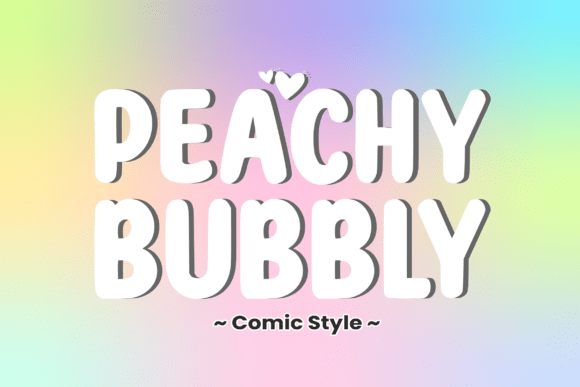
Peachy Bubbly Font: The Sweetest Addition to Your Design Projects
Are you looking for a font that can add a touch of sweetness and playfulness to your design projects? Look no further than the Peachy Bubbly font, a contemporary bubble font that is sure to delight. In this article, we’ll take a closer look at the Peachy Bubbly font, its features, and how you can use it to enhance your designs.
What is Peachy Bubbly Font?
Peachy Bubbly is a modern bubble font that is designed to add a touch of whimsy and fun to your designs. Each character in the font is carefully crafted to resemble a bubble, with a rounded and smooth appearance that is sure to capture attention. The font is perfect for a variety of design projects, from t-shirt printing to animation and comic titles.
Ideas for Using Peachy Bubbly Font
Peachy Bubbly is a versatile font that can be used in a variety of design projects. Here are some ideas to get you started:
- T-shirt printing: Peachy Bubbly is a great choice for printing on t-shirts, adding a fun and playful touch to your designs.
- Mugs and tote bags: The font’s bubble design looks great on mugs and tote bags, making it a perfect choice for customizing these types of products.
- Animation and comic titles: Peachy Bubbly is ideal for use in animation and comic titles, adding a touch of whimsy and fun to your projects.
- Signage and displays: The font’s bold and rounded design makes it easy to read from a distance, making it a great choice for signage and displays.
The Benefits of Using Peachy Bubbly Font
Peachy Bubbly offers a range of benefits that make it an attractive choice for designers. Here are some of the key advantages of using this font:
- Ease of recognition: The font’s bold and rounded design makes it easy to read and recognize, even from a distance.
- Enhanced creativity: Peachy Bubbly’s playful design is sure to inspire your creativity, helping you to come up with new and innovative design ideas.
- Versatility: The font can be used in a variety of design projects, from print to digital media.
Design Tips for Using Peachy Bubbly Font
Here are some design tips to help you get the most out of Peachy Bubbly:
- Pair with contrasting fonts: Pair Peachy Bubbly with contrasting fonts to create visual interest and add depth to your designs.
- Use bold colors: The font’s playful design looks great with bold and bright colors, so don’t be afraid to experiment with different color schemes.
- Experiment with sizes: Peachy Bubbly looks great in a variety of sizes, from small and delicate to large and bold.
Getting Inspired with Peachy Bubbly Font
Peachy Bubbly is a font that is sure to inspire your creativity and help you to come up with new and innovative design ideas. Here are some ways to get inspired with this font:
- Browse design galleries: Browse design galleries and look for examples of how Peachy Bubbly has been used in different design projects.
- Experiment with design tools: Experiment with different design tools and software to see how Peachy Bubbly works in different contexts.
- Take on a design challenge: Take on a design challenge and see how you can use Peachy Bubbly to create a unique and eye-catching design.
Peachy Bubbly is a fun and playful font that is sure to add a touch of sweetness to your design projects. With its bold and rounded design, ease of recognition, and versatility, it’s an excellent choice for a variety of design applications. Whether you’re a seasoned designer or just starting out, Peachy Bubbly is a great font to have in your toolkit.